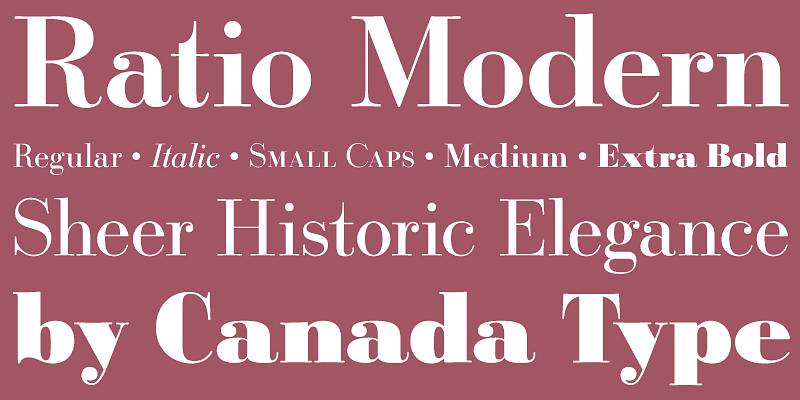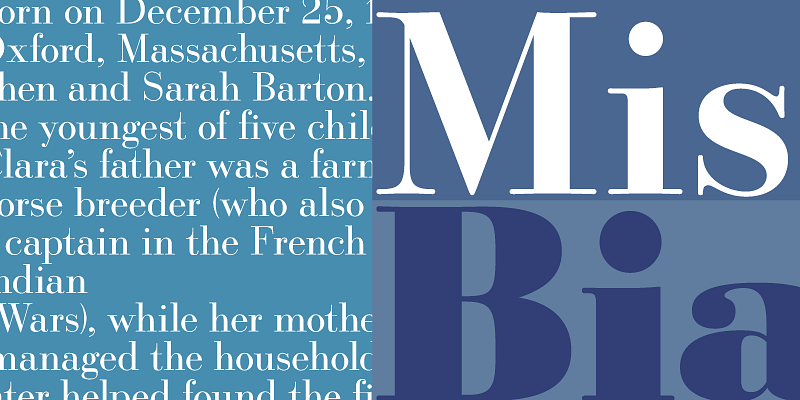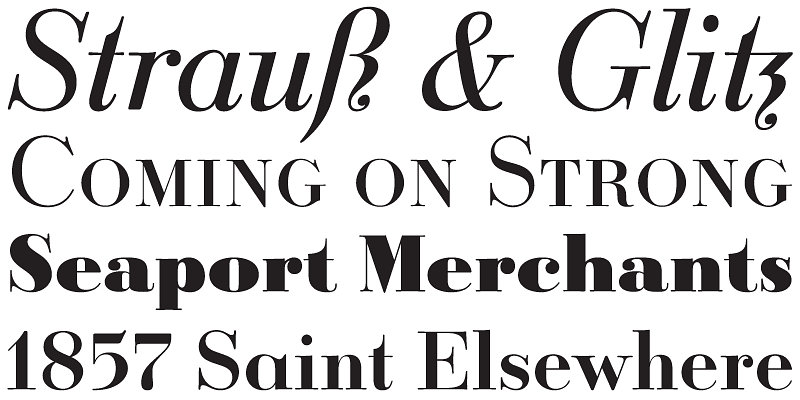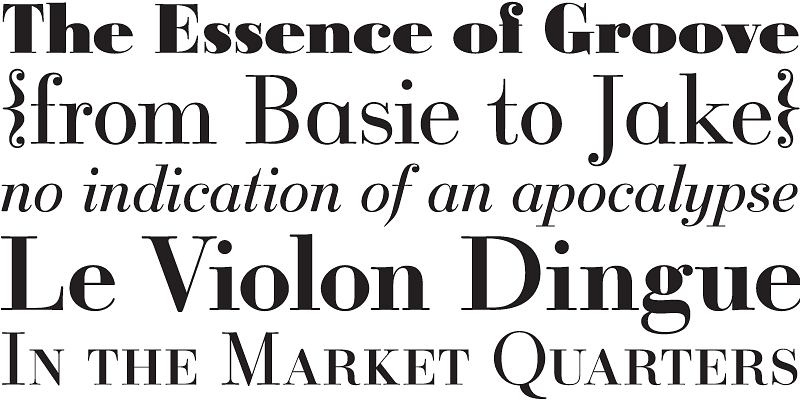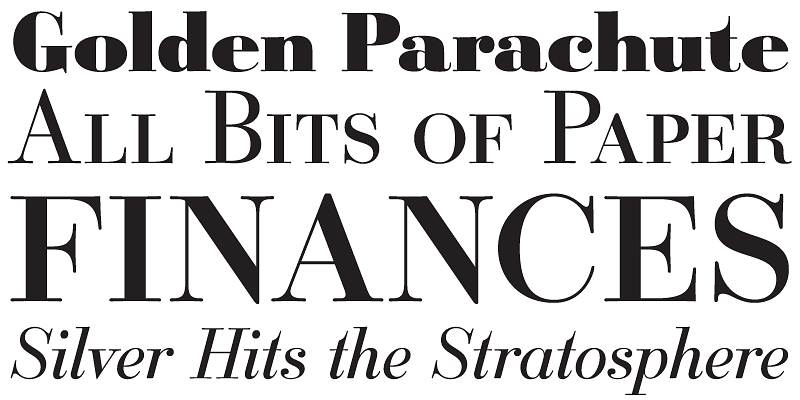
Designed in 1923, Ratio was one of the first faces to bring the Didone to the forefront of mass publishing as a headline and magazine face. It exhibits an evolution of this aesthetic with traditional traits underlying a modern construct.